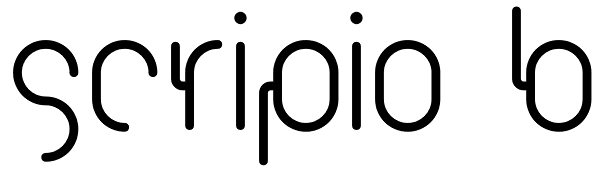
Scripio B
Scripio B a font from the same series, as Scripio A. But it differs in some ways from its predecessor. It seems to me some letters are similar to cactuses in prairies.